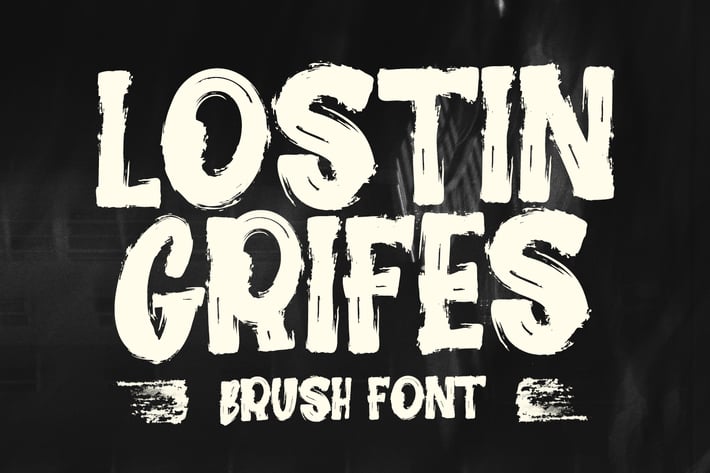
Lostin Grifes Brush Font
Lostin Grifes handmade brush display font, fun character with alternates and ligatures. To give you an extra creative work. Lostin Grifes handmade brush display font support multilingual language.